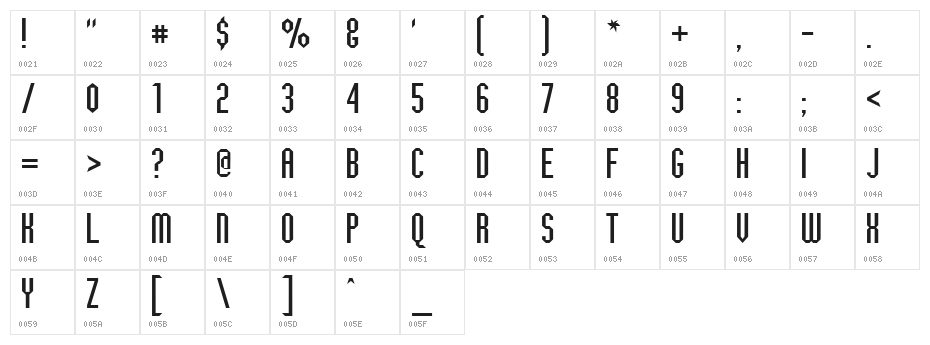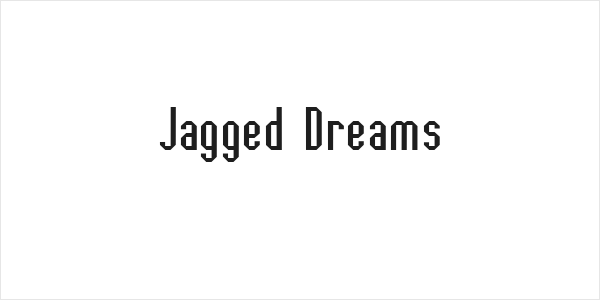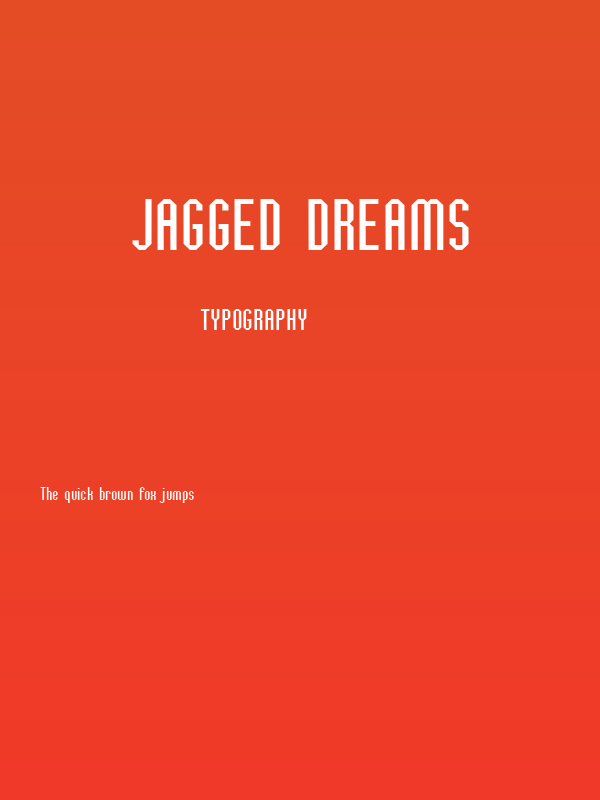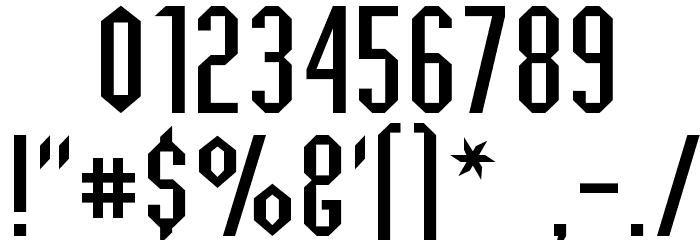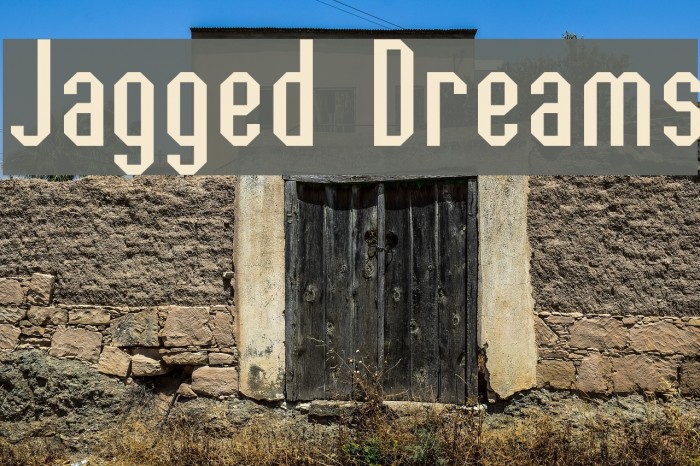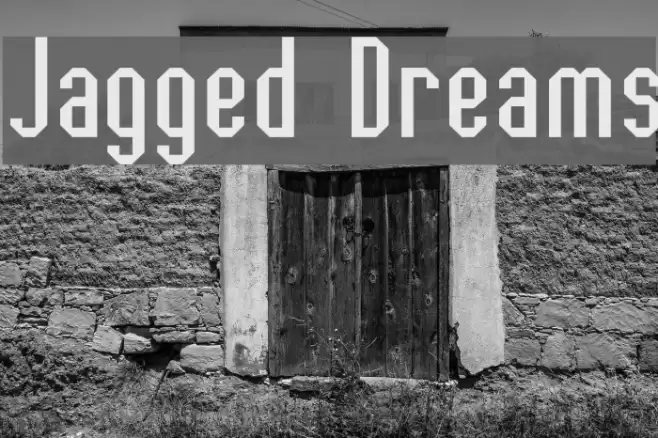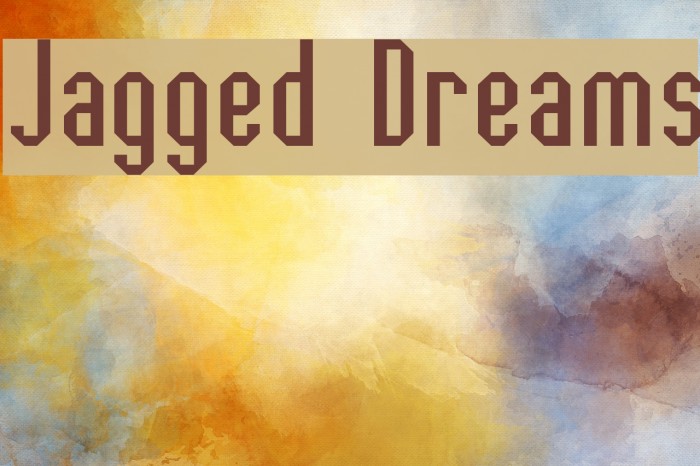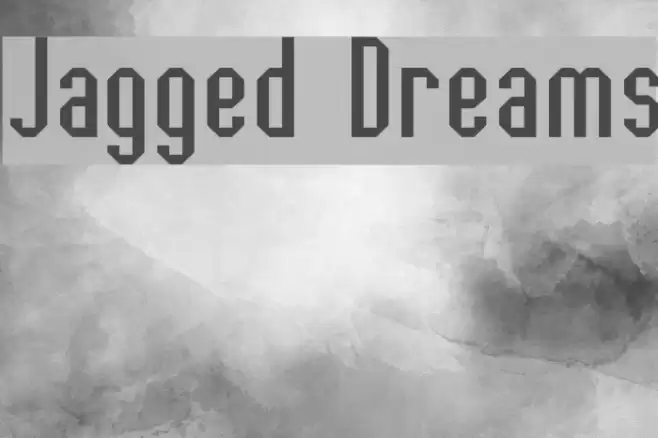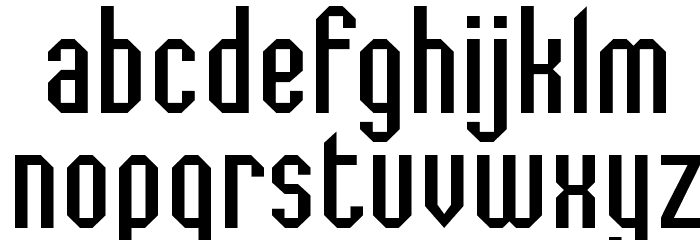
Jagged Dreams Font
Jagged Dreams Description
This font features a bold, geometric design with sharp, angular edges that give it a modern and edgy appearance. The uppercase letters are tall and narrow, while the lowercase letters maintain a consistent height, creating a uniform look. The numerals and special characters follow the same angular style, making the font cohesive across all characters. The overall design is striking and attention-grabbing, suitable for projects that require a bold statement. Its unique style makes it ideal for creative and artistic applications.